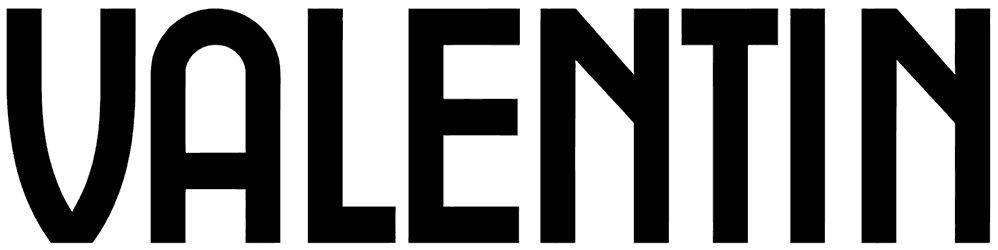
Valentin Font
A potential new client could be lost forever if they are dissatisfied with your first design proposal. So, if you’re looking for a sans-serif font to wow your audience, Valentin is here.
Valentin is one of those assets that stand out thanks to its tall, geometric characters and can give your digital works a more playful vibe, despite its lack of lowercase letters. This could be used for anything from billboards and brochures to clothes and other designs.